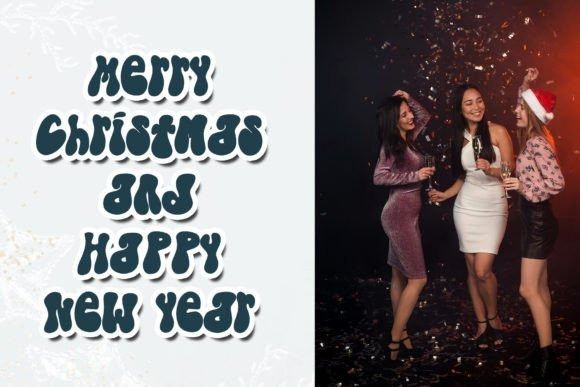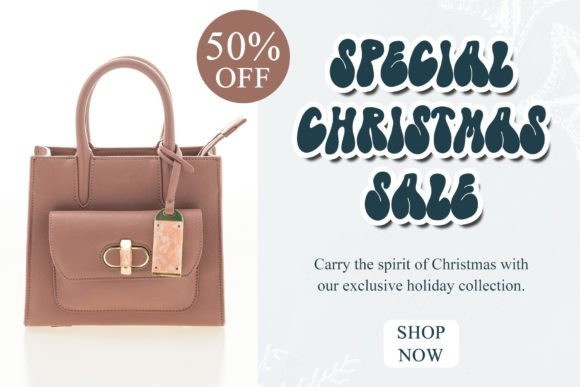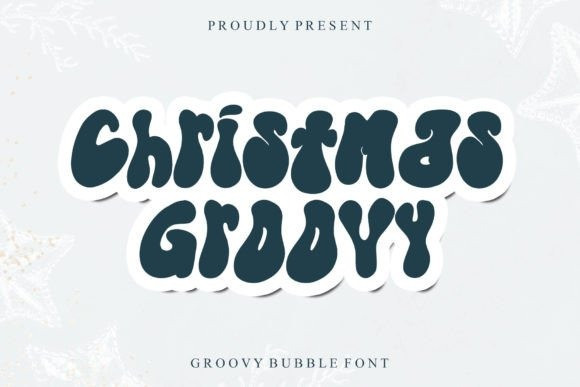
Christmas Groovy Display Font
Christmas Groovy Display Font is a fun and bubble display font. No matter the topic, this font will be an incredible asset to your fonts’ library, as it has the potential to elevate any creation.